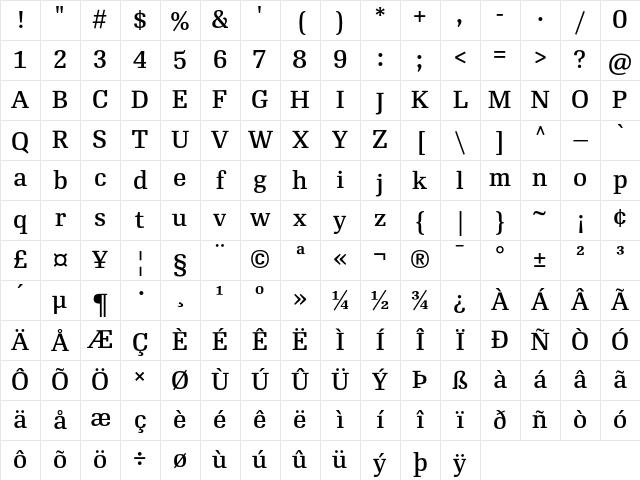
RePublic Text Regular
Foundry: Tomas Brousil,
RePublic Text Family
Design Context for RePublic Text
RePublic Text is a composed and adaptable typeface that performs quietly and consistently across a wide range of design contexts.